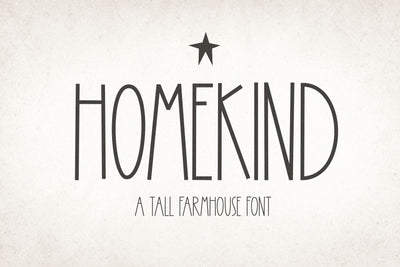
Homekind - Tall Farmhouse Font
Homekind is a tall and skinny farmhouse font.
This font is perfect for farmhouse signs, craft projects, shirts, mugs, doormats, pillows and more!